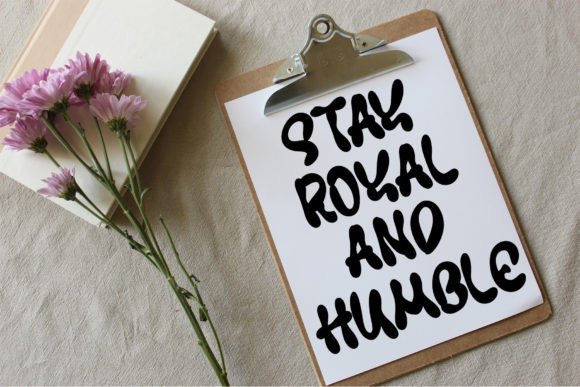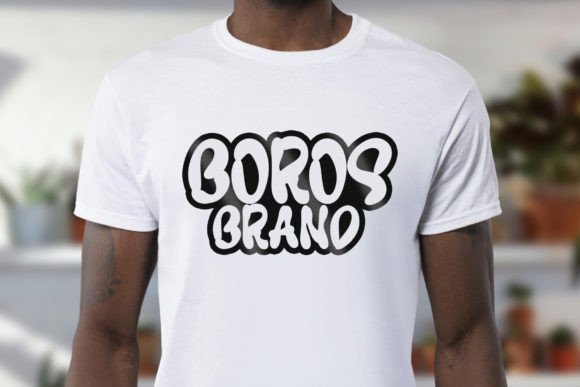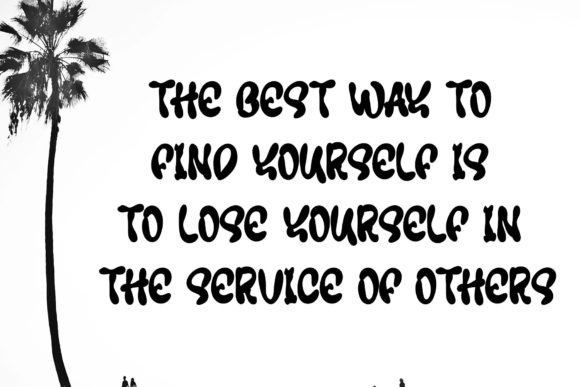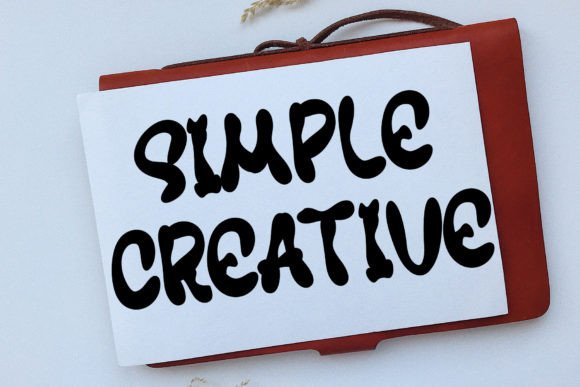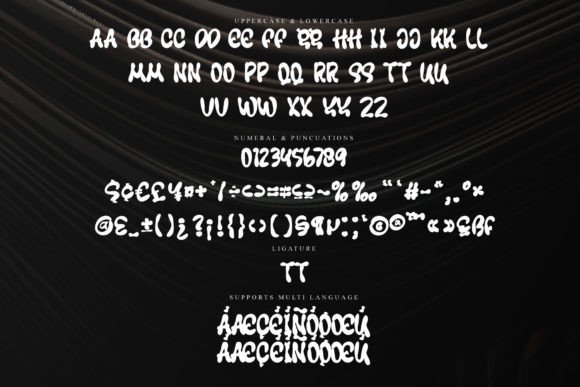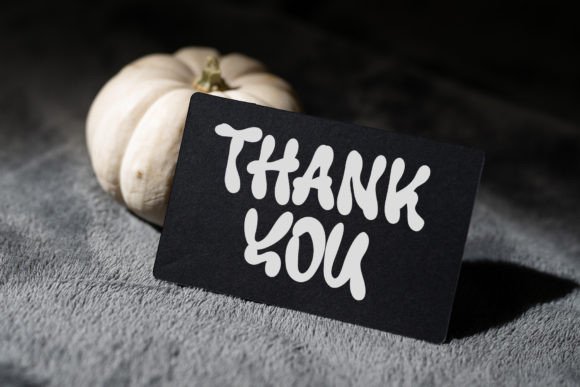
Introduction to Singer Font Font
Fonts play a crucial role in design, and the Singer Font font is a typeface that brings both character and versatility to any project. Whether you’re working on a branding project, a website, or a print design, the Singer Font font offers a unique style that can elevate your work.
Singer Font is a striking and versatile display typeface that commands attention with its bold and charismatic letterforms.
With its strong lines and unique details, this font exudes a sense of confidence and personality Perfect for headlines, posters, and branding projects, Singer Font adds a powerful and memorable presence.
Key Features of Singer Font Font
Why Choose Singer Font Font?
The Singer Font font is more than just a typeface – it’s a design tool that helps you communicate your message with style and clarity. Its unique character set and versatile design make it suitable for a wide range of applications, from elegant invitations to bold headlines.
With its carefully crafted letterforms and balanced proportions, the Singer Font font ensures readability and visual appeal across all mediums.
What makes Singer Font font special?
The Singer Font font stands out with its unique design, exceptional readability, and versatility across various design applications.